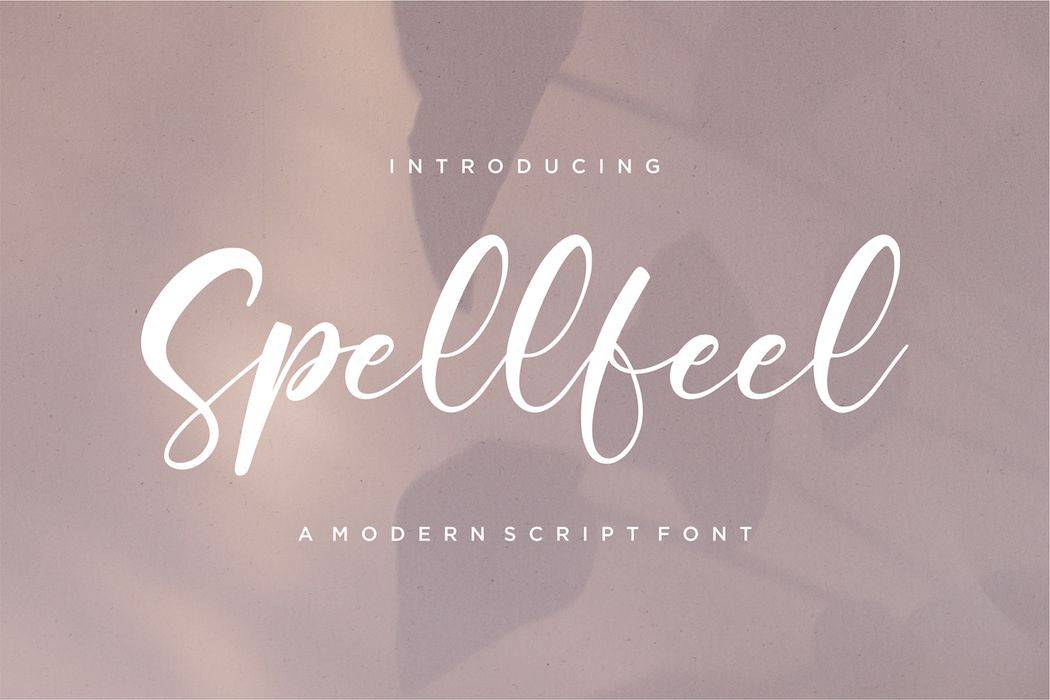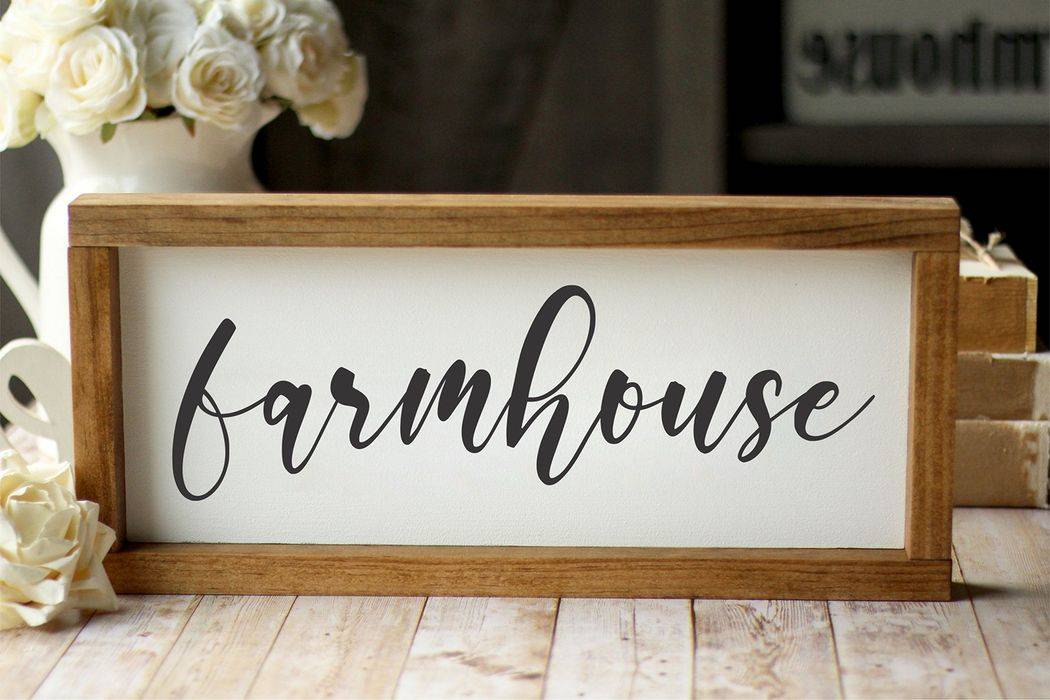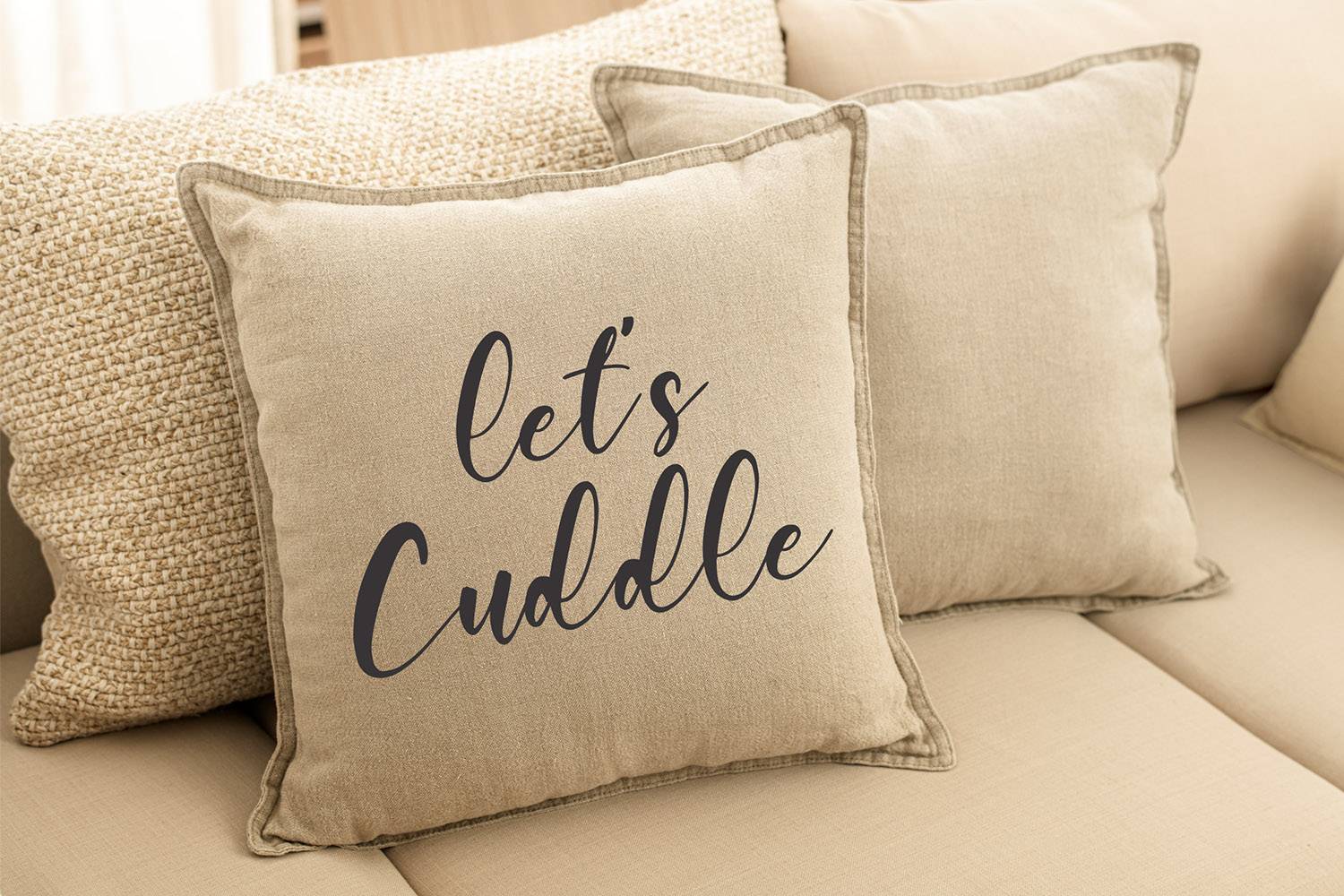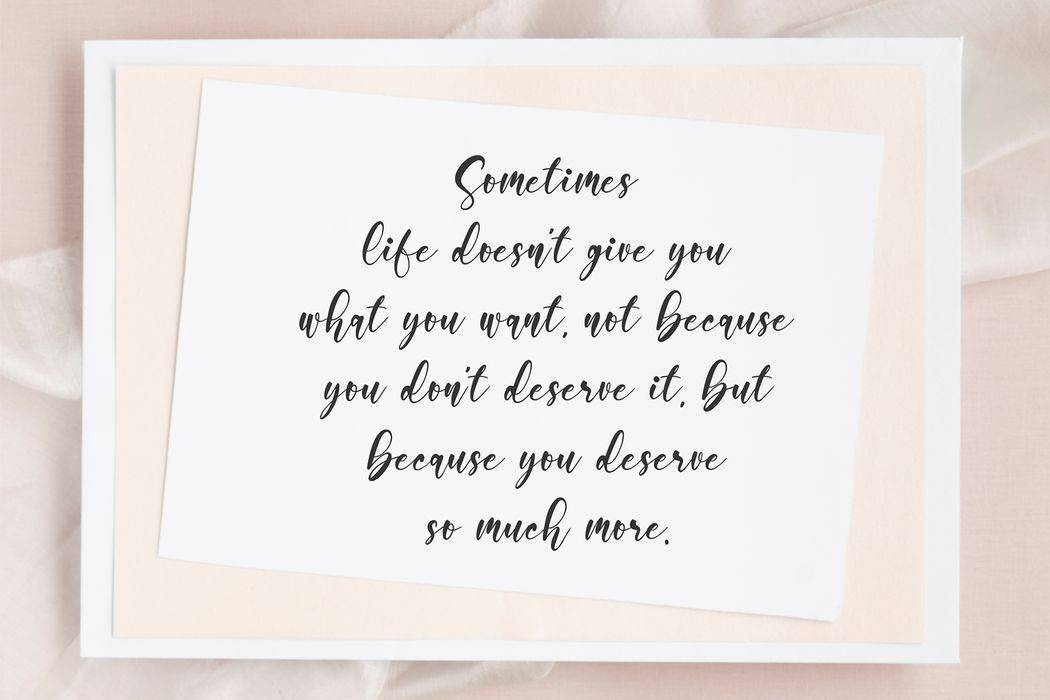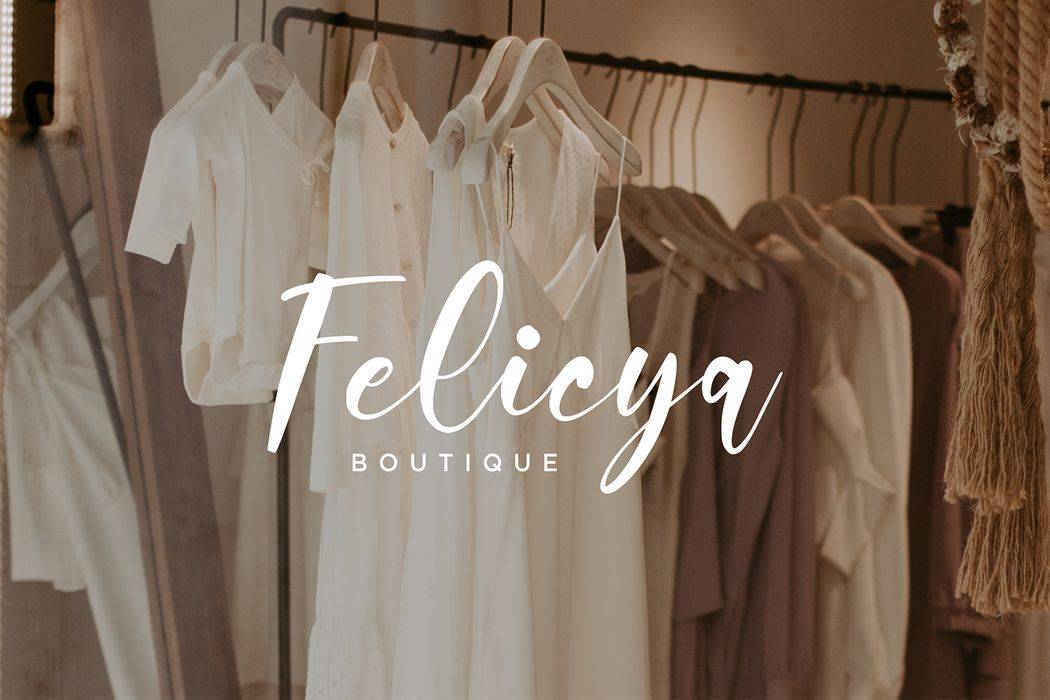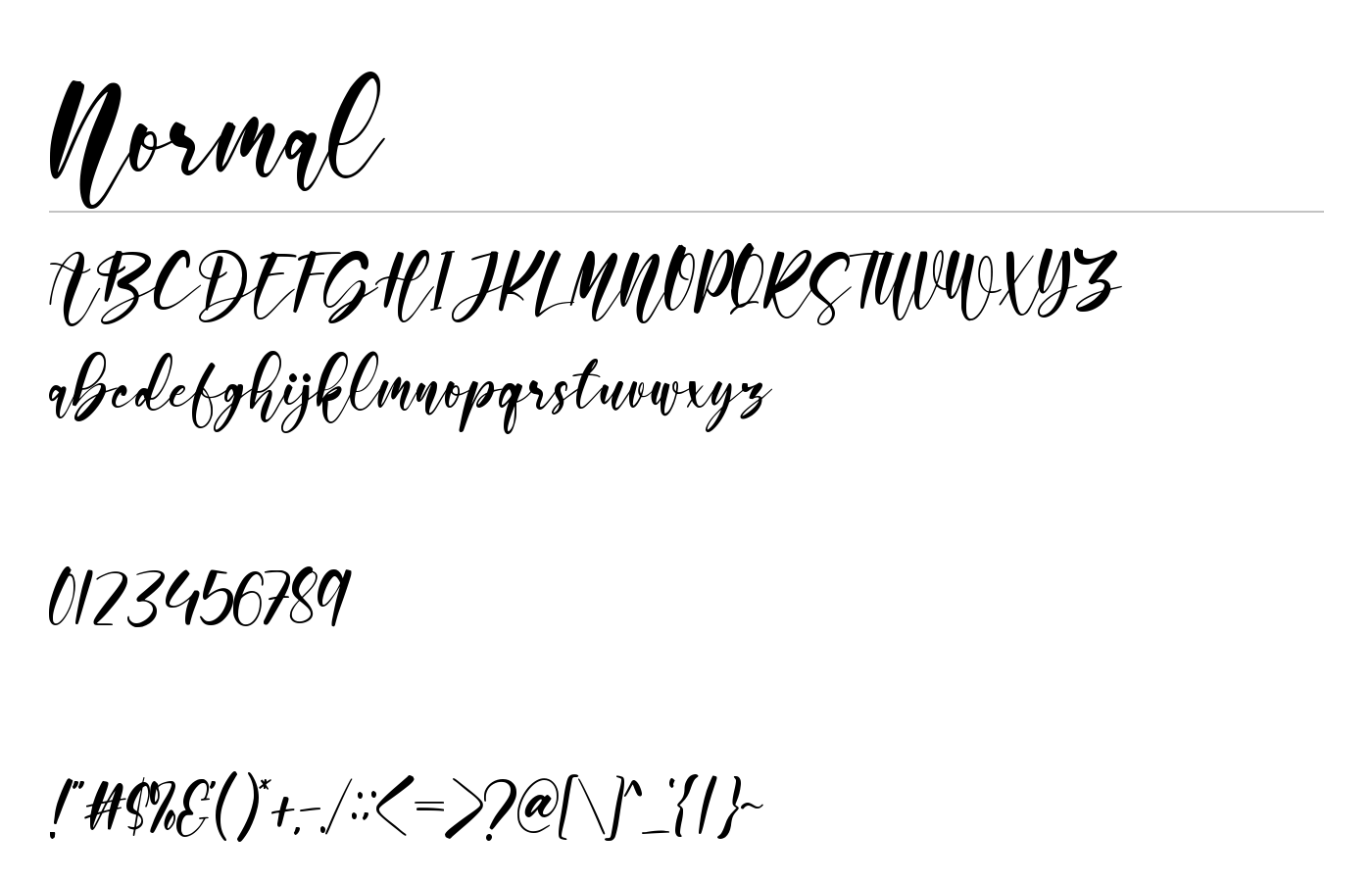
Spellfeel is a lively script font with elegant, flowing strokes that create a hand-lettered feel full of personality. Its moderate weight and high contrast between thick and thin lines bring a stylish, modern touch, making it perfect for invitations, branding, and creative projects seeking a warm, sophisticated yet approachable look. The font’s dynamic letterforms and smooth curves work beautifully for headlines and decorative text where a personal, artistic flair is desired.
Spellfeel Font
About Spellfeel Font